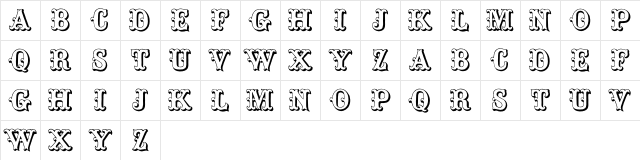
Toskanische Egyptienne Initialen Regular
Foundry: Typographer Mediengestaltung
Designer: Digitalisiert durch Dieter Steffmann
Design Context for Toskanische Egyptienne Initialen
Toskanische Egyptienne Initialen is a composed and adaptable typeface that performs quietly and consistently across a wide range of design contexts.